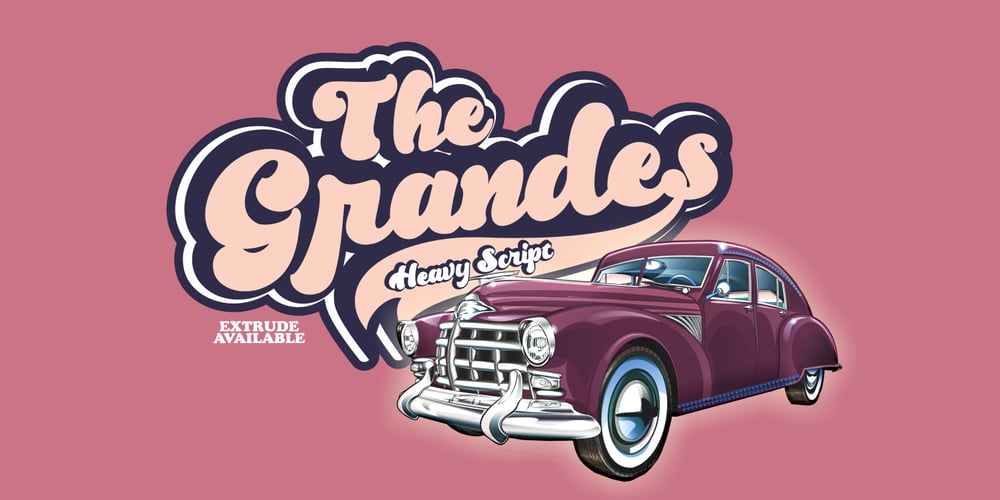
Grandes
Grandes Font Family was designed by Daddi Daryawan and published by Creativework Studio. Grandes contains 2 styles and family package options. Grandes is a bold script font, grandes is perfect for design illustrations on t-shirts, logos, product brands, Use it to add that special vintage touch to any design idea you can think of.